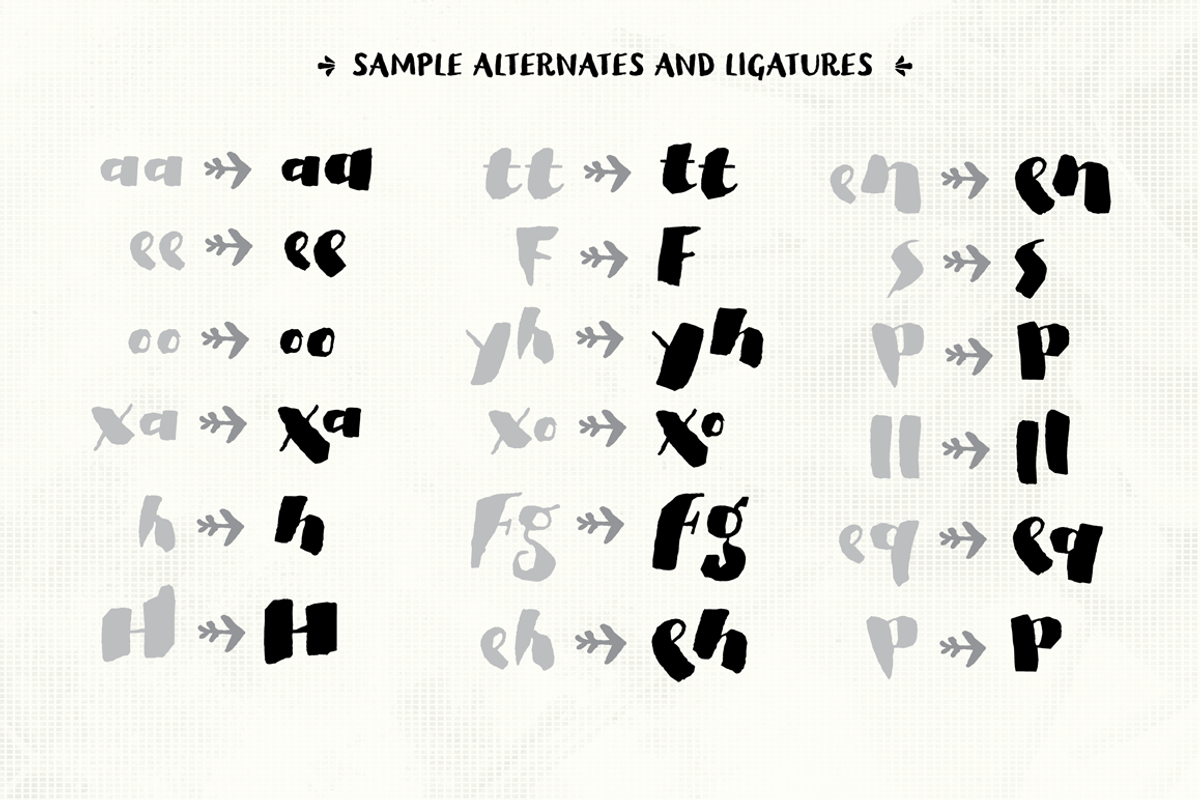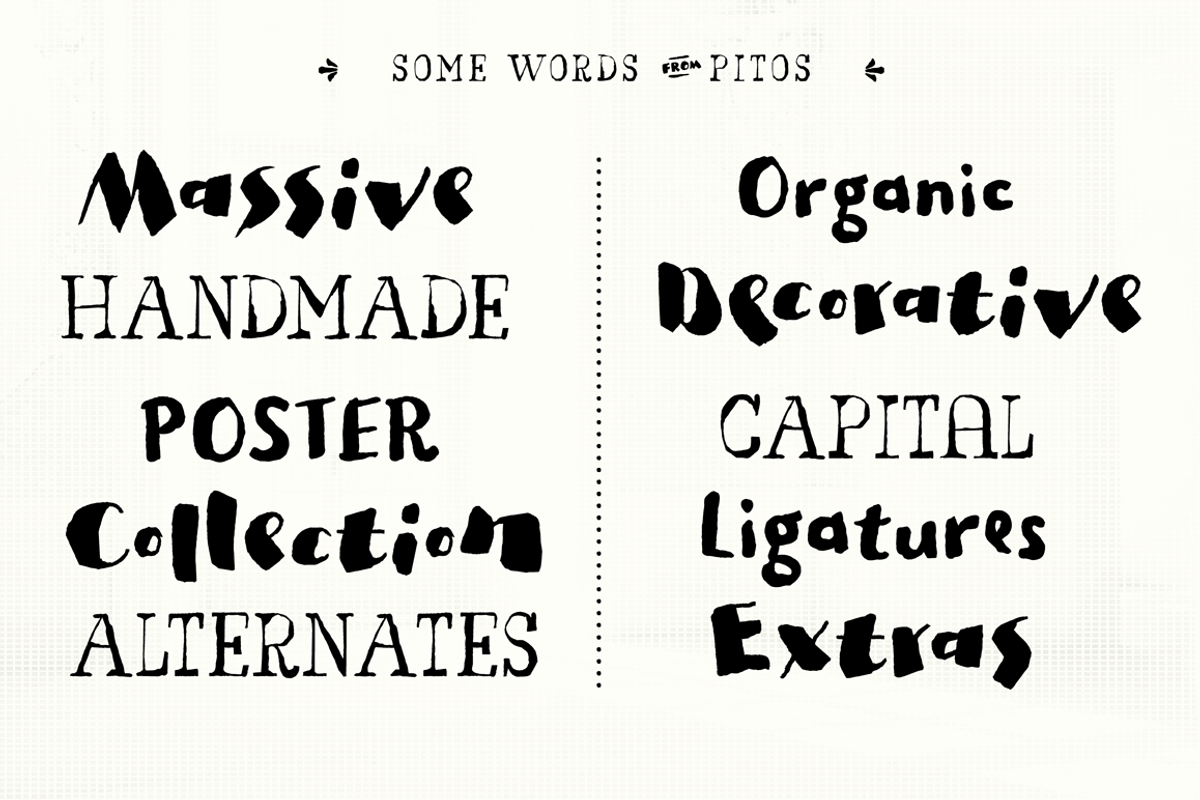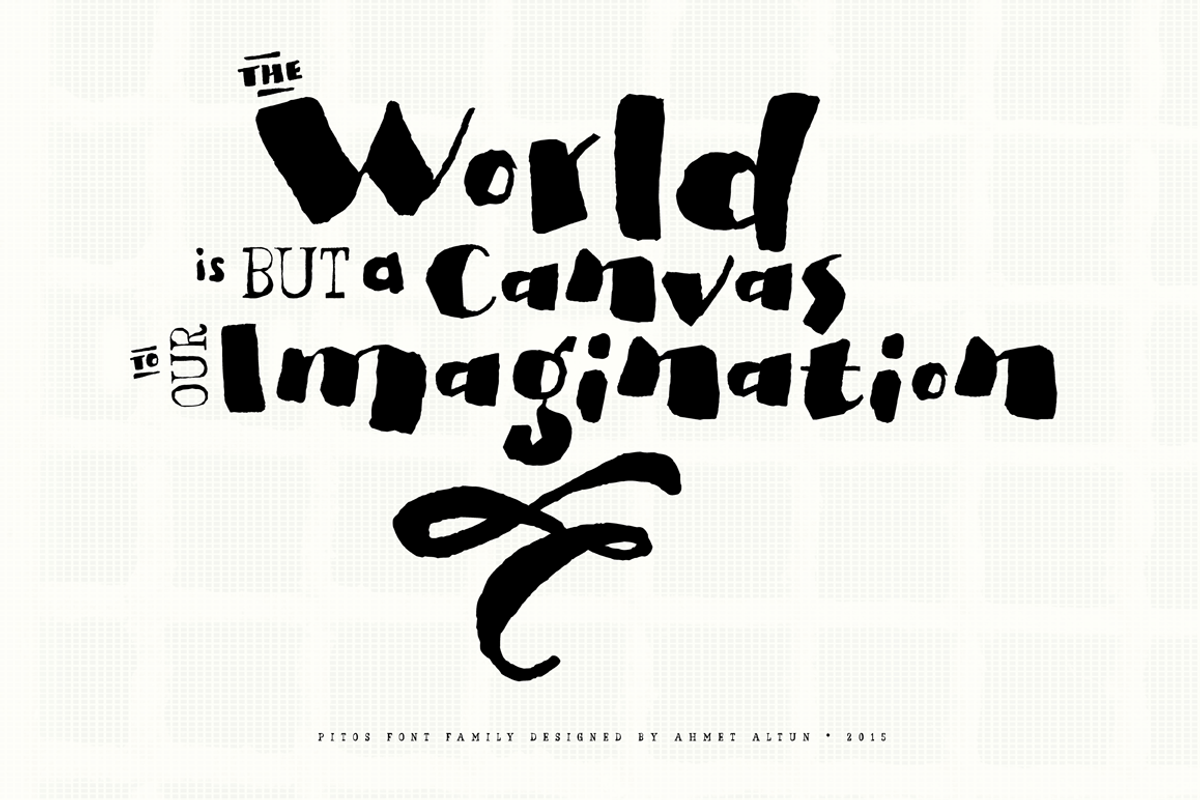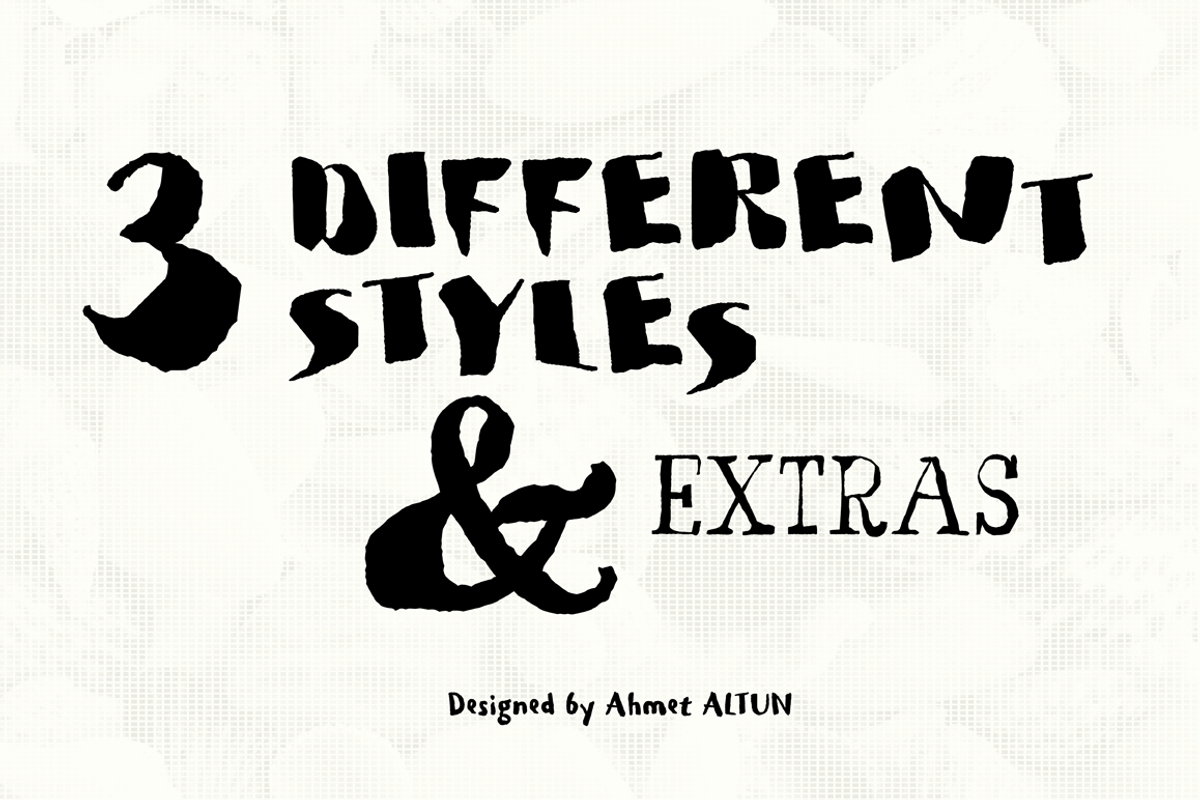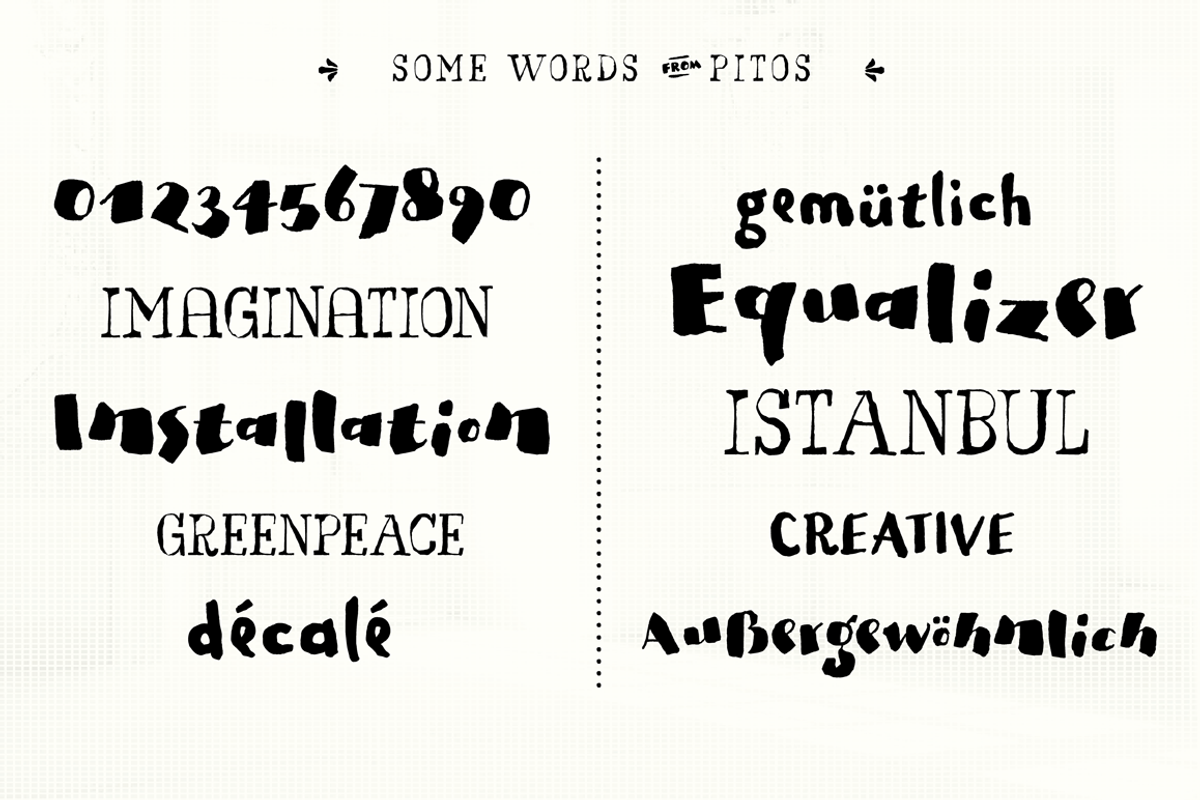
Pitos Font Family
Pitos Font Family includes 3 fonts that have different styles from each other but very eye-pleasing when thet're used together. There exists the extras in the family which are very easy to be reached on the keyboard with simple codes. This font collection is completely hand-writing.
Pitos Font Family was designed carefully to create elegant typographic works. It is great to use in designs of lettering works and the extras are very useful to make them elegant. It would be a perfect choice to design posters, affiches, logos such as wine bottle labels, t-shirt and magazine prints, eye-pleasing typographic designs and more.